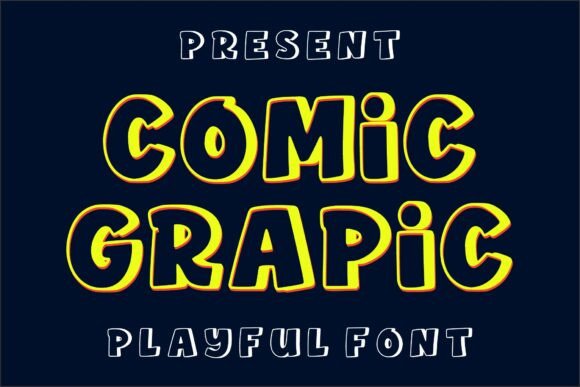
Introducing Comic Grapic Font: Unleash the Power of Retro Comic Book Style
Are you looking for a font that can add a burst of energy and playfulness to your designs? Look no further than Comic Grapic, a bold and energetic font inspired by the iconic lettering of retro comic books. With its chunky, expressive letterforms and fun, outlined shadow effect, this font is perfect for bringing instant action-packed vibes to your projects.
What is Comic Grapic Font?
Comic Grapic is a modern font that pays homage to the classic comic book style of the past. Its unique design combines chunky, bold letterforms with a fun, outlined shadow effect, creating a vibrant and exaggerated look that’s sure to grab attention. This font is perfect for designers who want to add a touch of nostalgia and playfulness to their work.
Key Features of Comic Grapic Font
- Chunky, Expressive Letterforms: Comic Grapic features bold, chunky letterforms that are reminiscent of classic comic book lettering.
- Fun, Outlined Shadow Effect: The font’s outlined shadow effect adds a fun and dynamic touch to your designs.
- Vibrant and Exaggerated Look: Comic Grapic’s unique design makes it perfect for attention-grabbing headlines and titles.
- Perfect for Kids’ Projects: The font’s playful and energetic vibe makes it ideal for kids’ projects, cartoon titles, and school materials.
Use Cases for Comic Grapic Font
Comic Grapic is a versatile font that can be used in a variety of design projects, including:
- Kids’ Projects: Create fun and engaging designs for kids’ projects, such as children’s books, educational materials, and activity sheets.
- Cartoon Titles: Add a touch of comic book style to your cartoon titles and animations.
- Posters: Create eye-catching posters for events, promotions, and advertising campaigns.
- School Materials: Use Comic Grapic to create engaging and interactive school materials, such as worksheets, presentations, and newsletters.
- YouTube Thumbnails: Add a burst of energy to your YouTube thumbnails and video titles.
- Comic-Style Graphics: Create comic-style graphics, such as comic strips, graphic novels, and illustrations.
- Merchandise: Use Comic Grapic to create fun and playful designs for merchandise, such as t-shirts, stickers, and toys.
- Game UIs: Add a touch of comic book style to your game user interfaces and menus.
Why Choose Comic Grapic Font?
Comic Grapic is a unique and versatile font that offers a range of benefits, including:
- Instant Recognition: The font’s bold and energetic design makes it instantly recognizable and attention-grabbing.
- Playful and Fun: Comic Grapic adds a touch of playfulness and fun to your designs, making them more engaging and interactive.
- Highly Versatile: The font can be used in a variety of design projects, from kids’ projects to comic-style graphics.
- Easy to Read: Despite its bold and chunky design, Comic Grapic is easy to read and understand.
Tips for Using Comic Grapic Font
Here are some tips for getting the most out of Comic Grapic:
- Use it for Headlines: Comic Grapic is perfect for attention-grabbing headlines and titles.
- Experiment with Colors: Try out different colors and color combinations to add an extra burst of energy to your designs.
- Pair it with Other Fonts: Comic Grapic can be paired with other fonts to create a unique and interesting design.
- Use it for Emphasis: Use Comic Grapic to add emphasis to specific words or phrases in your design.
Comic Grapic is a bold and energetic font that’s perfect for adding a touch of retro comic book style to your designs. With its chunky, expressive letterforms and fun, outlined shadow effect, this font is sure to grab attention and bring instant action-packed vibes to your projects. Whether you’re working on kids’ projects, cartoon titles, posters, or comic-style graphics, Comic Grapic is a versatile and highly versatile font that’s sure to deliver.